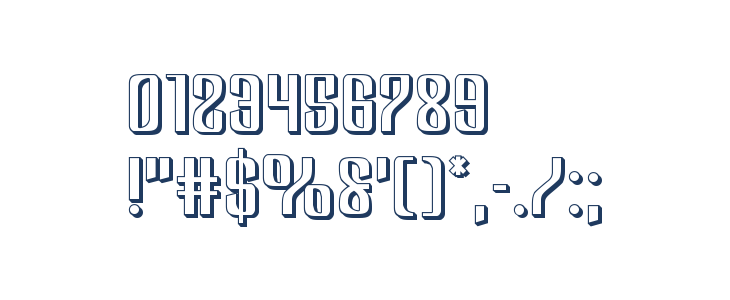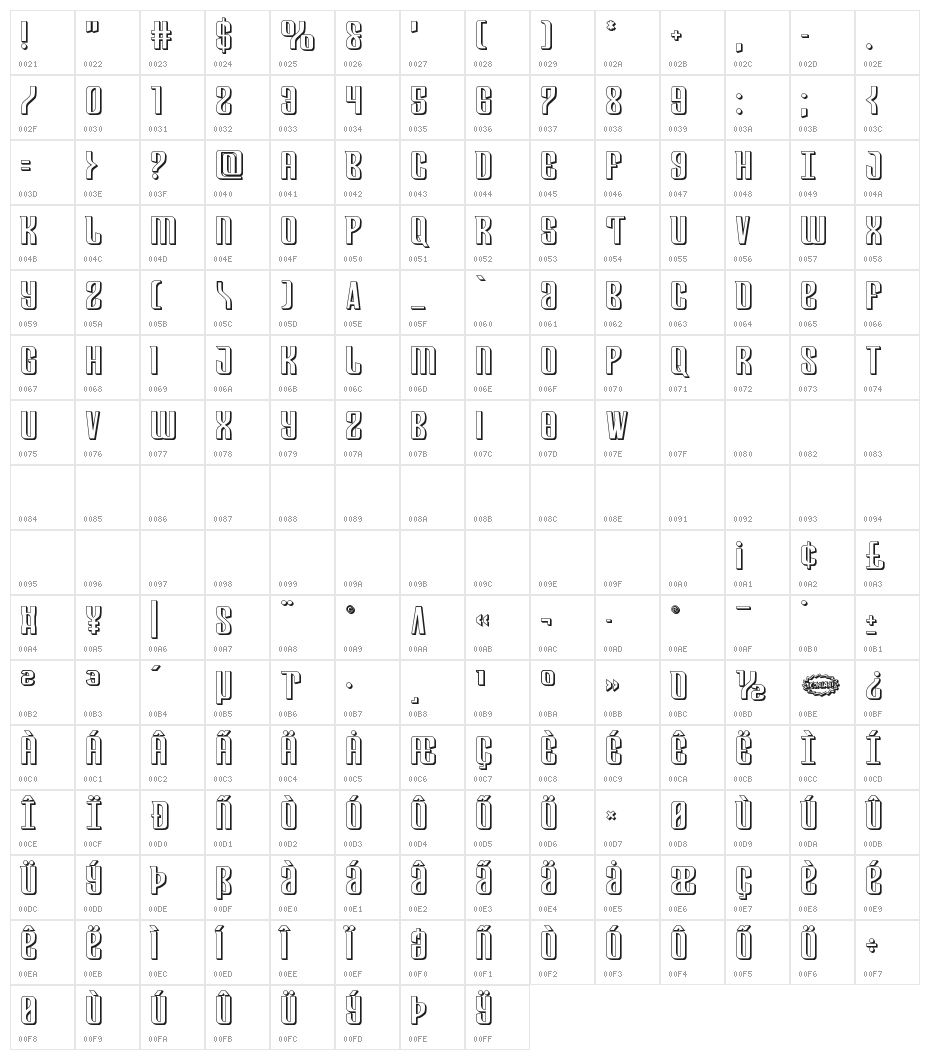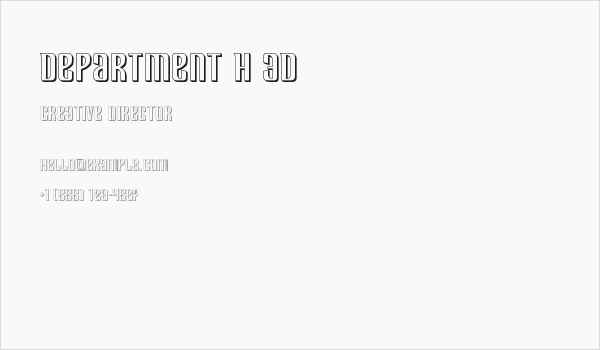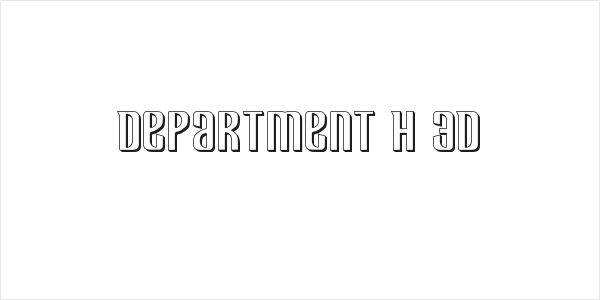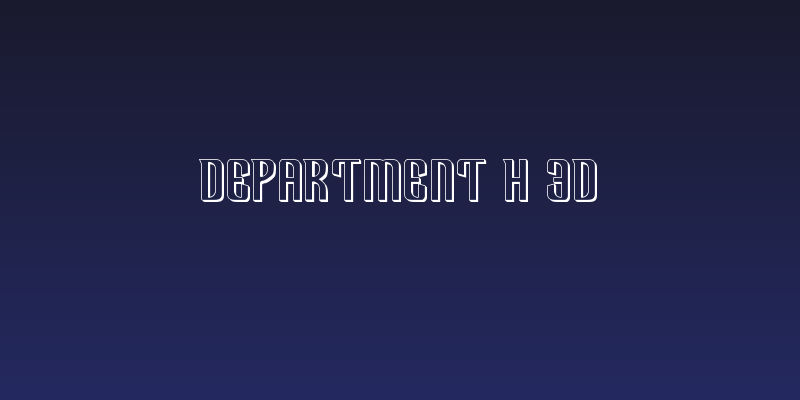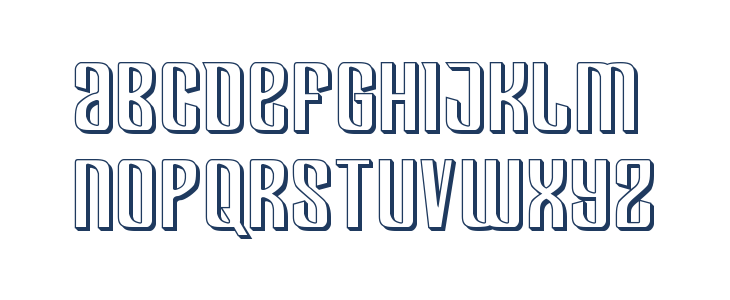
Department H 3D Font
Department H 3D Description
This font features a bold, three-dimensional design with a strong outline that creates a striking visual impact. The characters are uppercase and lowercase, with a geometric structure that emphasizes vertical and horizontal lines. The numbers and special characters maintain the same bold style, ensuring consistency across all glyphs. The font's 3D effect is achieved through a clever use of shading and line work, giving it a modern and dynamic appearance. This style is ideal for projects that require a bold statement, such as posters, headlines, or branding materials.